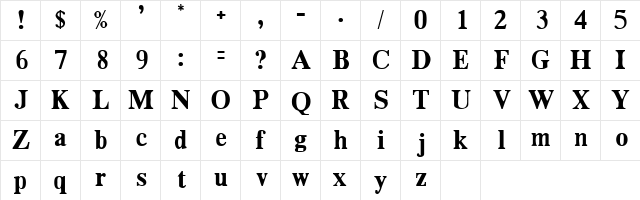
DailyPlanet Black
Design Context for DailyPlanet Typeface
DailyPlanet offers clean, dependable letterforms without strong stylistic allegiance, making it a practical choice for designers who need flexibility.